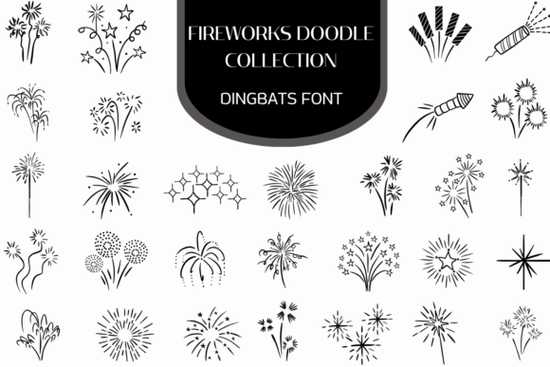
If you've ever struggled to find the right festive graphics for party invitations, holiday promotions, or social media posts, the Firework Doodle Collection Font might be exactly what you need. Instead of traditional letters and numbers, this creative dingbats font gives you a full keyboard full of hand-drawn firework doodles stars, sparklers, bottle rockets, bursting rings, and trailing sparks. You type, and the celebration art appears.
What Exactly Is a Dingbats Font, and How Does It Work?
A dingbats font replaces standard characters (A–Z, 0–9) with symbols or illustrations. When you install the Firework Doodle Collection font on your computer, each key on your keyboard maps to a unique firework-themed doodle. Press "A," you might get a starburst ring. Press "B," and a curling sparkler trail appears.
Who Is This Font Best For?
This font works well for a pretty wide range of creative people:
- Print-on-demand sellers who need quick celebratory graphics for t-shirts, mugs, and party supplies
- Small business owners designing flyers or social posts for holiday sales, especially around New Year's Eve, the 4th of July, or carnival season
- Crafters and hobbyists making birthday cards, scrapbook pages, or party decorations with a Cricut or Silhouette machine
- Web and social media designers looking for playful icon overlays or accent elements
If you regularly create seasonal or event-based content, having a library of ready-to-use firework doodles on your keyboard saves real time.
What Kinds of Illustrations Are Included?
The collection covers a solid range of festive, line-art firework imagery. Here's what you'll find inside:
- Explosive starburst rings
- Shimmering constellation-style dots and clusters
- Streaming bottle rockets
- Classic sparkler shapes
- Curling firework trails
- Celebratory burst clusters
Because everything is in line-art style, the designs stay clean and versatile. They work at small sizes on a card and scale up nicely for posters or banners. You can recolor them easily in any design software, which makes them adaptable to virtually any color palette or brand style.
How Does It Compare to Other Doodle Fonts?
There are plenty of doodle fonts out there, but most cover general themes arrows, hearts, flowers, borders. What makes this one stand out is its specific focus on fireworks and celebration. If you've ever pieced together unrelated clipart to fake a festive vibe, you know how inconsistent that can look.
This font keeps everything stylistically unified. Every doodle feels like it belongs in the same set, which means your final design looks intentional and polished even if you threw it together in five minutes.
For comparison, something like Christmas doodle font collections serve a different seasonal niche. The Fireworks Doodle Collection fills that mid-year and end-of-year celebration gap that often gets overlooked.
What Projects Can I Use It For Right Away?
Here are some practical, real-world uses:
- New Year's Eve party invitations type a few doodles as border accents or background texture
- 4th of July sale graphics pair firework doodles with bold patriotic text
- Birthday card designs add sparklers and bursts around your message
- Social media story overlays scatter a few doodles for a festive, casual feel
- Carnival or festival flyers use the rocket and burst icons for event promotions
- T-shirt and mug designs especially for seasonal print-on-demand shops
Any Limitations I Should Know About?
Since it's a dingbats font, you won't be typing words with it. It's purely decorative. You'll need a separate font for any text-based content. Also, because it's vector line art, it looks best in designs where clean, minimal illustration fits the aesthetic. If you need full-color, realistic firework images, a raster graphic or photograph would be more appropriate.
That said, for hand-drawn, sketchy, and playful design styles, it hits the mark perfectly.
Quick Checklist Before You Buy
- ✅ Do you regularly design holiday or celebration-themed content?
- ✅ Do you use software that supports custom font installation?
- ✅ Do you prefer a hand-drawn, organic illustration style over photorealistic graphics?
- ✅ Do you need firework art that's consistent in style across multiple elements?